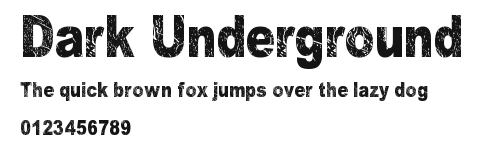
Dark Underground Preview
• Font Name: Dark Underground
• Full Font Name: Dark Underground
About Dark Underground.ttf
Dark Underground.ttf is a modern, elegant sans-serif font designed for ultimate readability and visual harmony. Perfect for branding, headlines, web design, and print materials.